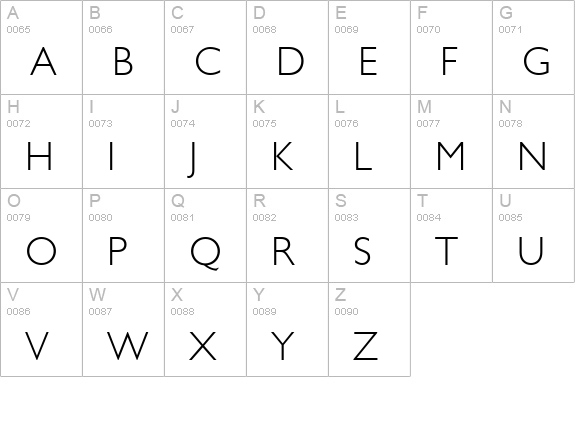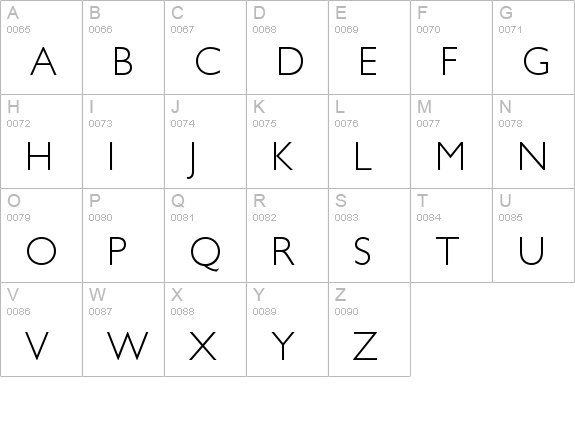
Gill Light SSi Light is a refined, elegant variant in the Gill typeface family \xE2\x80\x94 well suited to elegant body text, refined sub-headings, and luxury branding.
Gill Light SSi Light font is a modern and elegant typeface that exudes sophistication and clarity. Its sleek lines and delicate curves make it perfect for various design projects, from branding to editorial layouts. This versatile font is ideal for creating a clean and professional look while maintaining a touch of style. What sets Gill Light SSi Light font apart is that it is available for free download at FontsMarket.com. This means you can easily access and use this high-quality font in your projects without any cost. Whether you're a graphic designer, web developer, or just someone looking to enhance their creative projects, Gill Light SSi Light font offers a stylish and versatile solution that won't break the bank. With its timeless appeal and effortless legibility, Gill Light SSi Light font is sure to elevate your designs and leave a lasting impression. Download it for free today at FontsMarket.com and see how this font can enhance your next project.